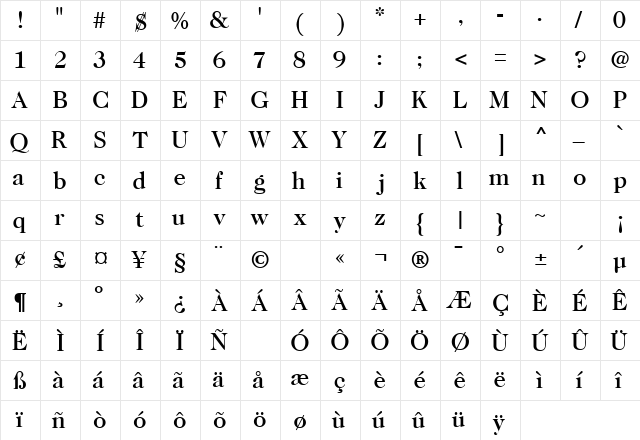
CaslonTwoMediumSSK Regular
Design Context for CaslonTwoMediumSSK Typeface
CaslonTwoMediumSSK is a composed and adaptable typeface that performs quietly and consistently across a wide range of design contexts.
Pro Tip: Use CaslonTwoMediumSSK in both headline and body roles to test its range before committing to a single application.